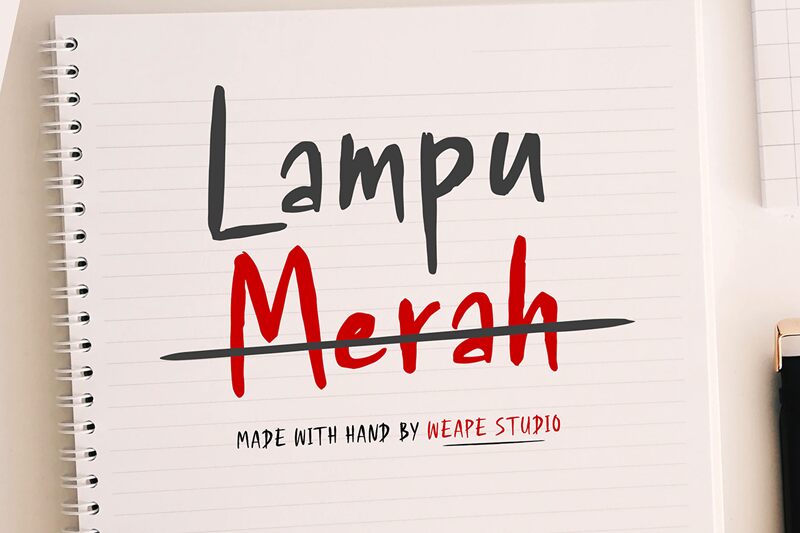
Lampu Merah
Lampu Merah font by Weape Studio possesses a casual aura resulting from its handwritten style and arrangement. Each character presents modernity in an expressive way, which distinguishes this tool and makes it as unique as its name. It’s not just the handwriting that gives it an aesthetic touch, but also its thick lines that create a contrast between the empty spaces reserved within the characters.
Use Lampu Merah handwritten font for postcards or greeting cards, or add it to advertisements and branding designs for companies or establishments. Allow for a comforting experience for readers with high-quality magazines that can be shared in print or online platforms.